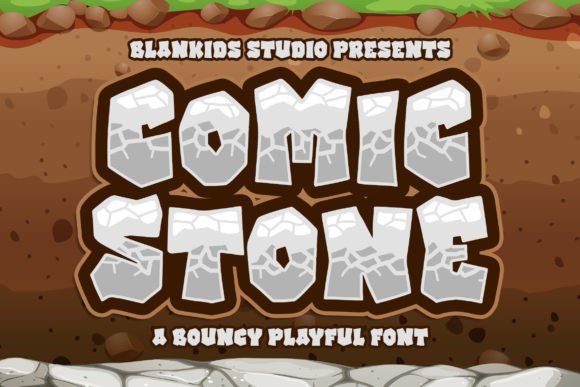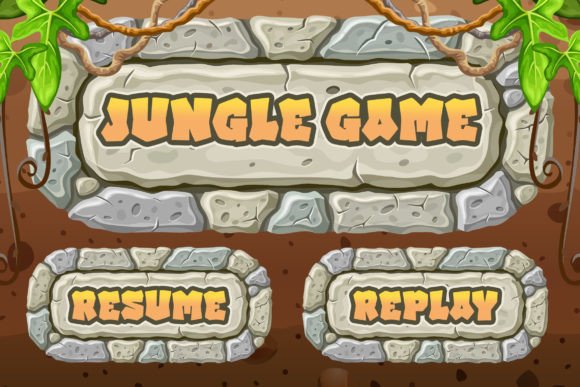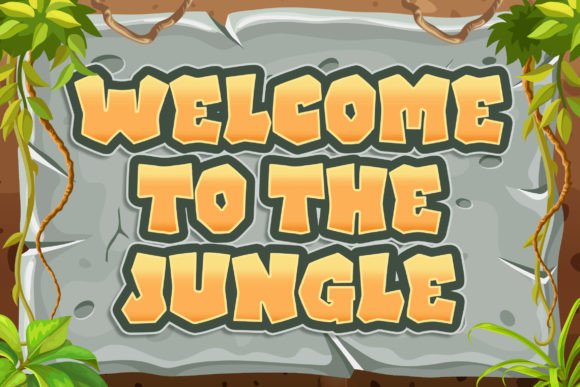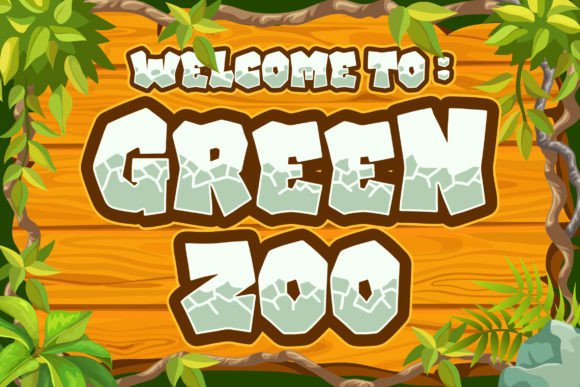
Comic Stone Font
About the Comic Stone Font
Elevate your designs with Comic Stone Font, a font that combines sophistication with readability. Are you looking for a cartoon/playful font? Do you want to create something that stands out and inspires creativity, imagination, and endless fun? Wait no more, here is the best choice.
Comic Stone is a bouncy and playful display font inspired by playful stone-style typography. It is suitable for book covers, children’s books, comics, posters, packaging, merchandise, logotype, and much more.
Comic Stone’s playful energy makes it ideal for headlines, posters, and packaging designs targeting younger audiences or projects needing a fun, approachable feel. It also works well for branding initiatives for businesses emphasizing creativity and lightheartedness, such as toy stores, children’s entertainment, or quirky cafes. However, its highly stylized nature makes it unsuitable for body text or UI elements where readability is paramount. Avoid using it for lengthy passages.
Pairing Comic Stone effectively requires considering its informal character. A clean sans-serif like Open Sans or a geometric sans-serif such as Futura would provide a strong contrast and enhance readability when used for supporting text. For a more whimsical approach, consider pairing it with a playful script font, but use it sparingly to avoid visual clutter.
Comic Stone’s overall personality is best described as bold, friendly, and undeniably playful. Its slightly irregular forms inject a handmade quality that enhances its informal charm, making it a perfect choice for projects that demand a sense of fun and approachability.
Comic Stone Font Usage Examples
Comic Stone Font Example